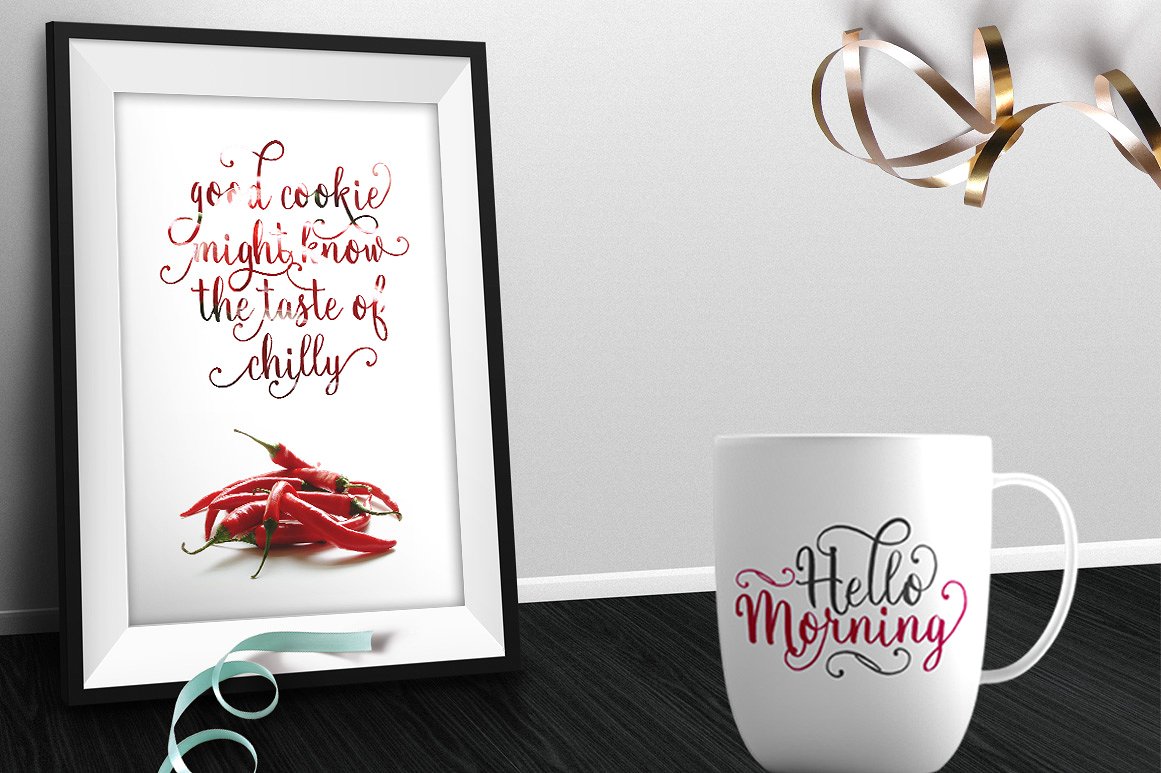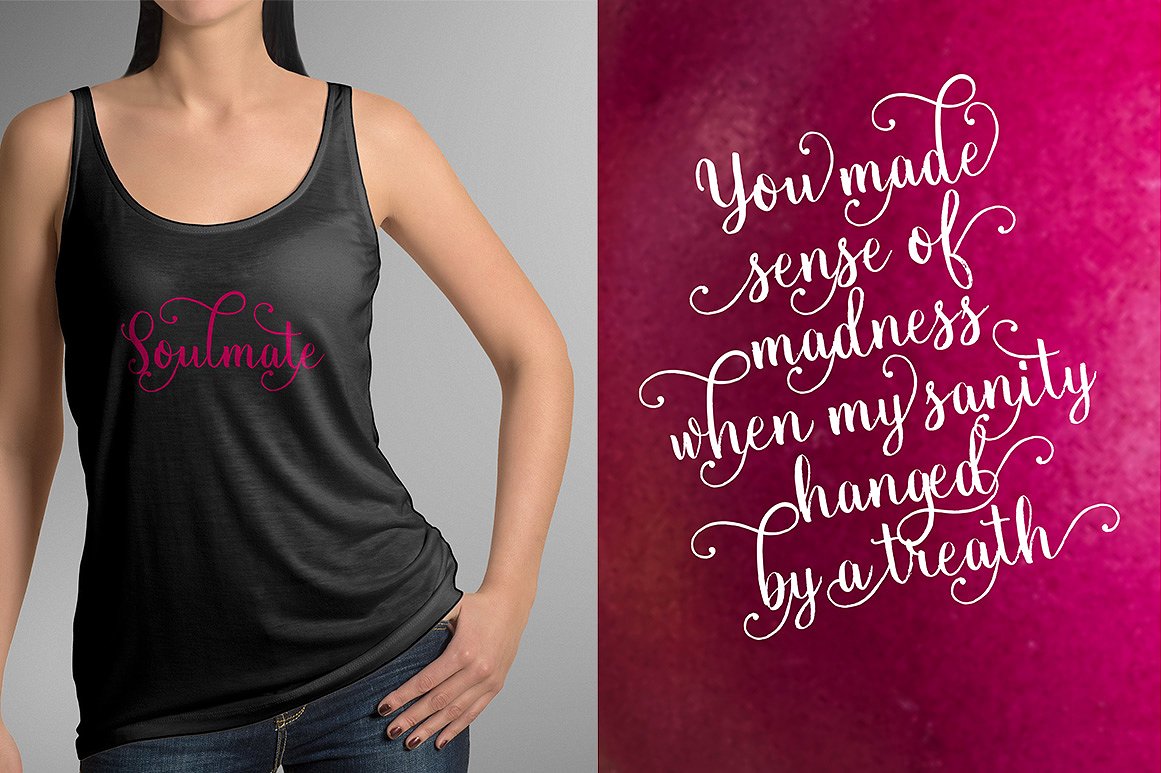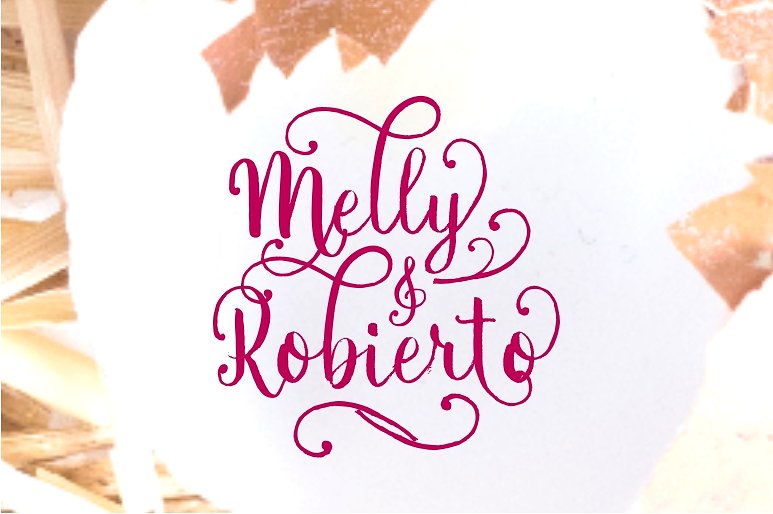
Crontang Font
About Crontang Font
Crontang is a gorgeous handpainted script that looks beautiful on delicate and airy designs. With a natural writing style and unique calligraphy, Crontang will be your go-to font.